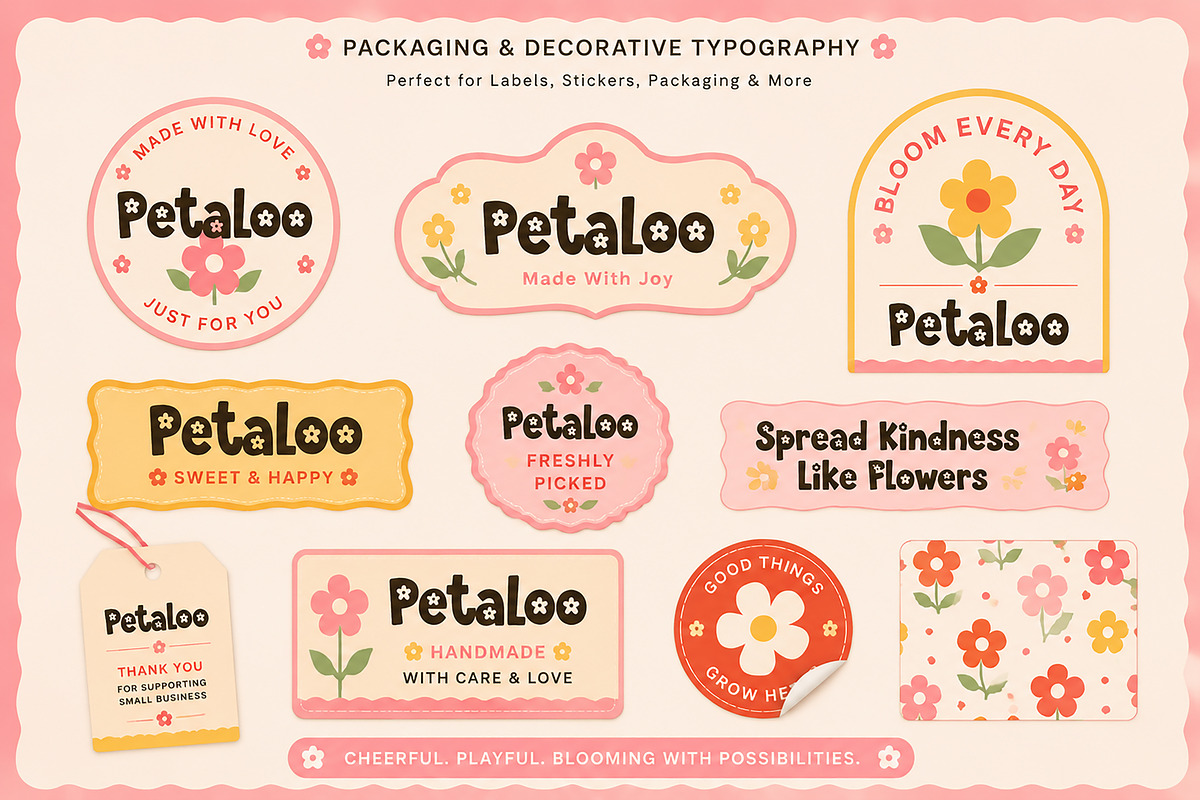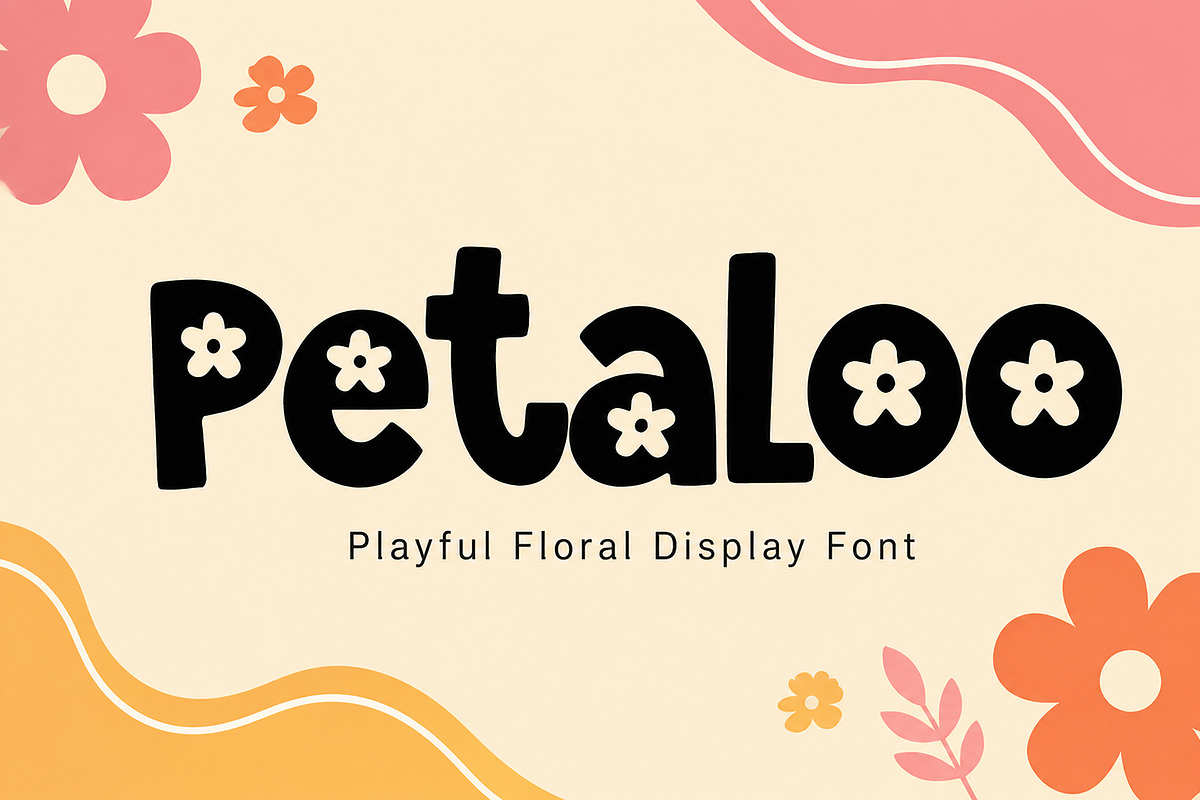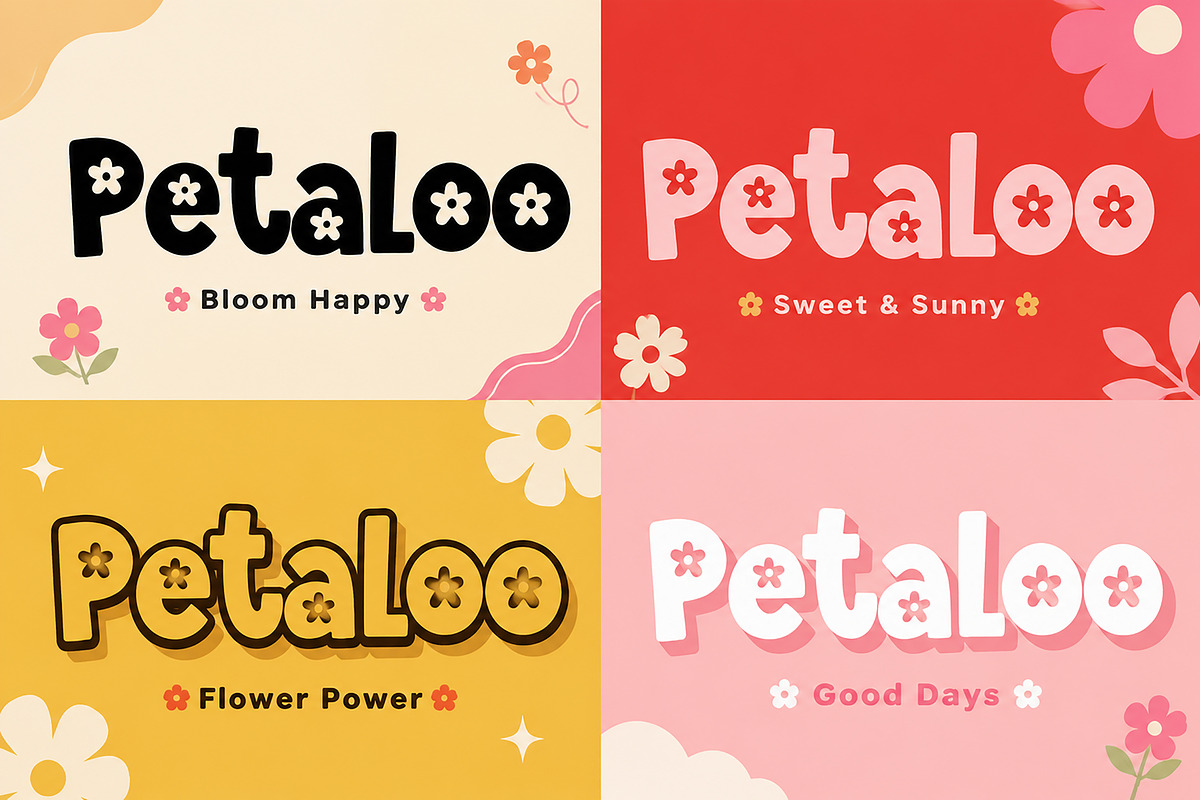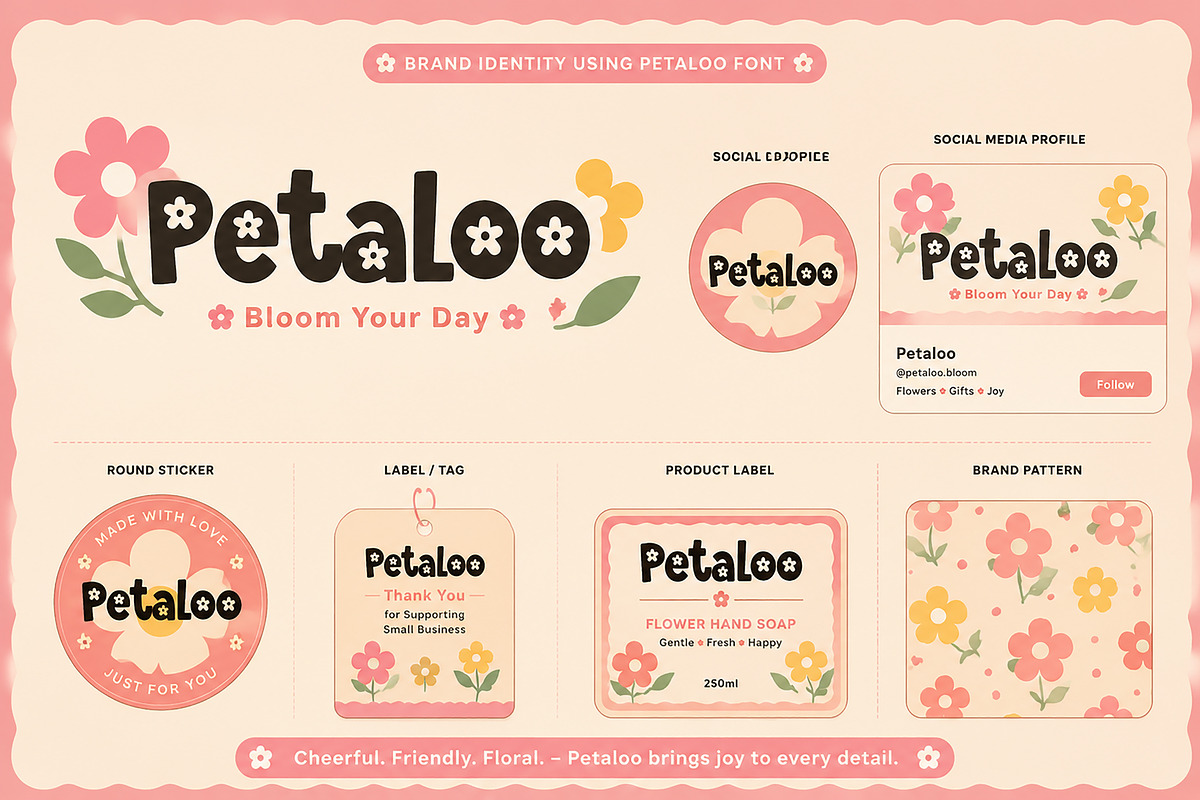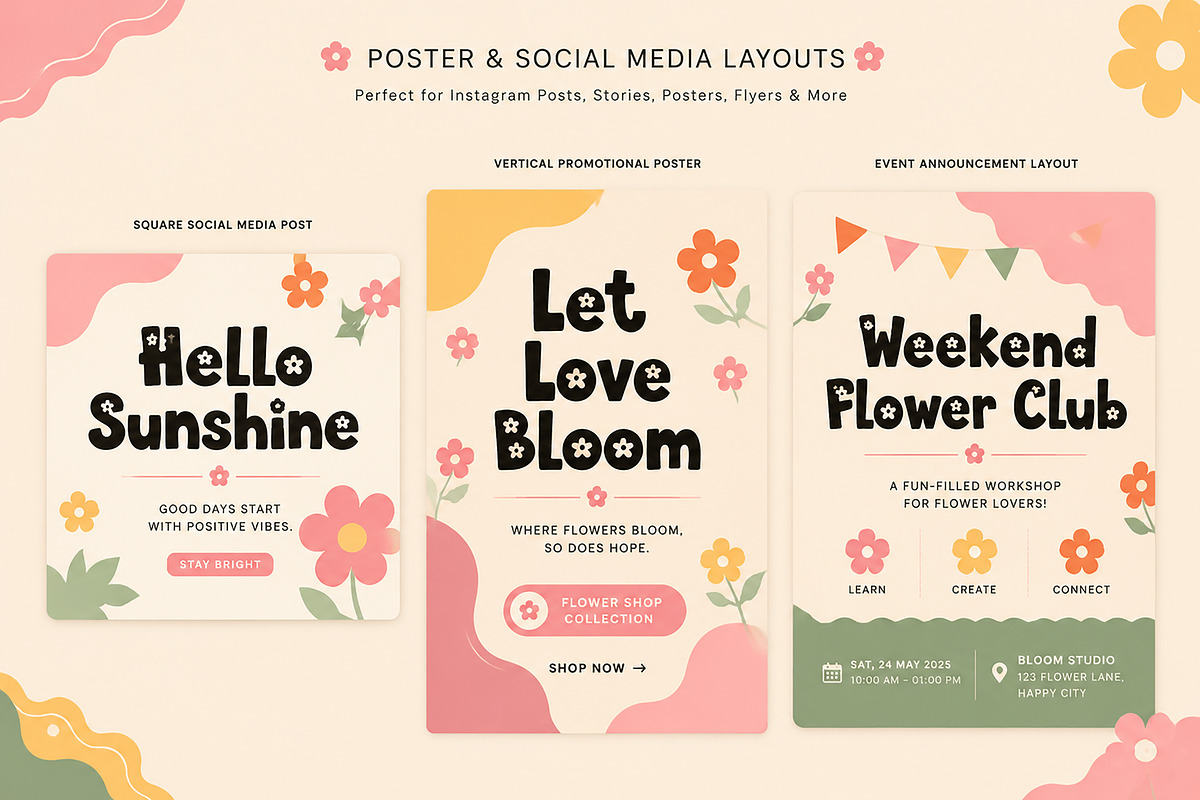
Petaloo
Petaloo – Playful Floral Display Font
Description
Petaloo is a playful floral display font designed to bring warmth, happiness, and personality to your creative projects. Featuring bold rounded letterforms with charming flower-inspired details, this font is perfect for creating eye-catching designs with a cheerful retro vibe.
Whether you're designing branding, packaging, social media graphics, posters, or handmade product labels, Petaloo adds a fun and memorable touch that instantly stands out.
Perfect for both personal and commercial creative projects, Petaloo works beautifully for bold headlines, logos, stickers, invitations, and decorative typography.
Brand Identity
Stickers & Labels
Social Media Posts
Posters & Flyers
Kids Branding
Flower Shops
Candy & Bakery Branding
Beauty & Skincare Packaging
Handmade Products
Greeting Cards
Invitations
T-Shirts
Creative Headlines
Bold Display Style
Playful Floral Design
Decorative Flower Details
Rounded Letterforms
Perfect for Large Titles
High-Quality Character Design
Ideal For
Petaloo is perfect for designers, small businesses, content creators, crafters, packaging designers, and anyone looking for a fun, friendly, and eye-catching display font.